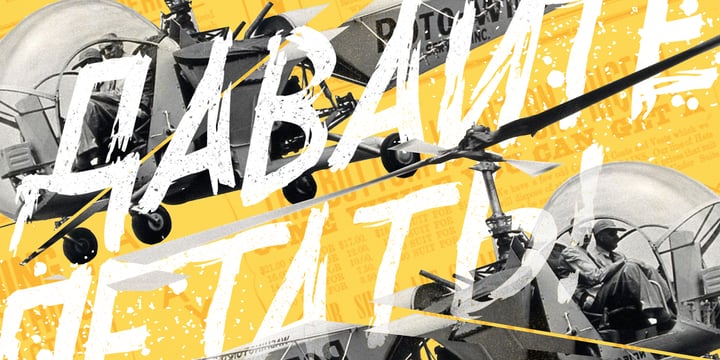
Surfbars
La famille de polices Surfbars a été conçue par Leonard Posavec et publiée par Creative Toucan. Surfbars contient 1 styles.
Surfbars is a handmade multi-language Latin / Cyrillic font that was inspired by surfing, sand, and playful style.
• Comes in Regular, Italic, Underlines, and Splashes
This font includes a full set of fun and unique uppercase and lowercase letters, numerals, and a large range of punctuation. Overall it contains more than 760 glyphs with 220 alternatives and +10 interesting ligatures, swashes, and underlines. With this font, you have complete freedom to use and combine various different letters, alternatives, and ligatures, by that you can be sure that your design or any kind of project will be a unique masterpiece.
Also, the combination and usage of different letters and ligatures gives you the opportunity to have fun and at the same time create your own unique style.
• More than 760 glyphs, 220 alternatives, 60 ligatures which are unique and playful
• This font includes Latin Plus diacritics.
• Surfbars support Latin Plus languages (Latin Multilingual language support)
• Surfbars support the Cyrillic alphabet.
Ideal for loud messages. Made with flat marker adding realistic moves in it. Very interesting to use for logos, name tags, handwritten quotes, product packaging, merchandise, social media & greeting cards. Also, ideal to make t-shirts designs and other clothing products.